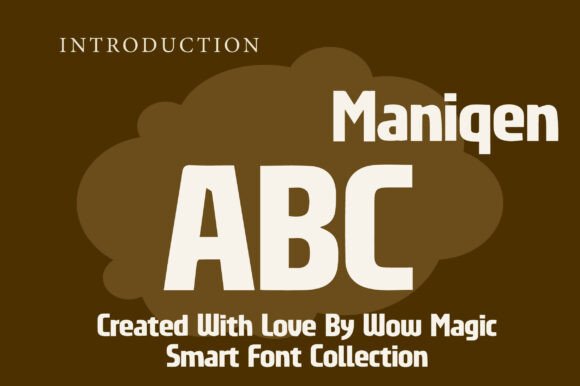
Introduction to Maniqen Font Font
Fonts play a crucial role in design, and the Maniqen Font font is a typeface that brings both character and versatility to any project. Whether you’re working on a branding project, a website, or a print design, the Maniqen Font font offers a unique style that can elevate your work.
Maniqen is a bold modern display font designed with strong geometric shapes and smooth rounded edges.
This font works perfectly for branding, logos, posters, packaging, product labels, social media graphics, and bold headline designs Maniqen delivers excellent readability while maintaining a powerful visual presence, making it ideal for both digital and print projects.
Key Features of Maniqen Font Font
Why Choose Maniqen Font Font?
The Maniqen Font font is more than just a typeface – it’s a design tool that helps you communicate your message with style and clarity. Its unique character set and versatile design make it suitable for a wide range of applications, from elegant invitations to bold headlines.
With its carefully crafted letterforms and balanced proportions, the Maniqen Font font ensures readability and visual appeal across all mediums.
What makes Maniqen Font font special?
The Maniqen Font font stands out with its unique design, exceptional readability, and versatility across various design applications.